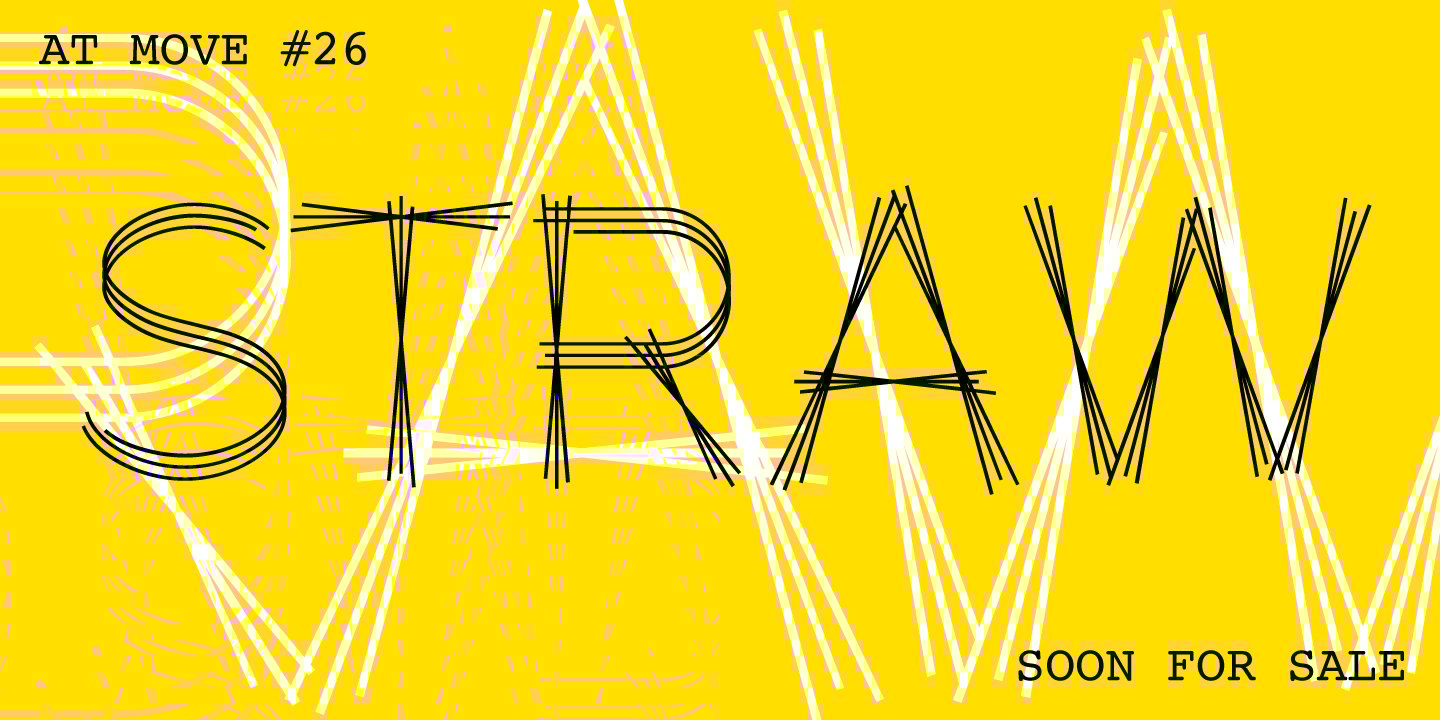
The AT Move Straw Font is perfect for eco-friendly restaurant branding, sustainable packaging designs, organic juice bar signage, natural straw manufacturers, environmentally conscious campaigns, farm-to-table establishments, zero-waste lifestyle brands, and authentic sustainability promotions. This organic typeface works exceptionally well in applications where environmental consciousness and natural movement need to be emphasized, making it perfect for green businesses that want to communicate ecological responsibility and sustainable living through naturally flowing, eco-inspired typography.
What makes AT Move Straw Font exciting is its organic movement and natural fiber character that captures the essence of sustainable living and environmental harmony. The font's flowing letterforms and straw-inspired design create an atmosphere of ecological awareness and natural responsibility, making it ideal for brands that want to promote environmental consciousness and demonstrate genuine commitment to sustainability. Its eco-friendly presence ensures that every application feels naturally sourced with authentic environmental credibility and sustainable appeal.
The AT Move Straw Font family typically includes light, regular, and bold weights, often featuring organic textures, natural fiber elements, and eco-friendly symbols that enhance its sustainable appeal. Many versions include biodegradable motifs, plant-based decorations, and specialized characters that provide designers with comprehensive tools for creating authentic environmental design projects with genuine sustainability sophistication and ecological excellence.
For designers working on projects that require environmental authenticity and sustainability credibility, AT Move Straw Font Free Download provides exceptional eco-friendly appeal. Its ability to instantly communicate environmental consciousness and natural responsibility makes it an invaluable choice for green brands, sustainable businesses, and any project requiring typography that embodies the flowing beauty of natural materials, the wisdom of ecological living, and the authentic appeal of environmental sustainability and conscious consumption.